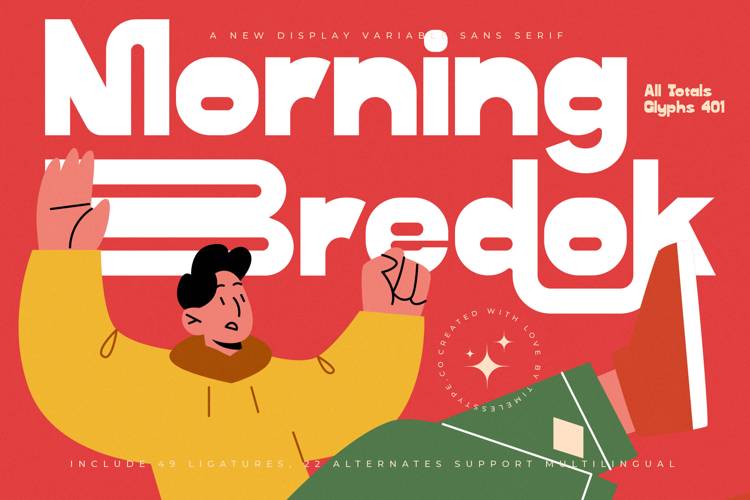
Morning Bredok - Display Variable Sans Serif
Morning Bredok is a variable sans serif display font that combines modern boldness with versatile functionality. Its clean lines, geometric balance, and contemporary proportions make it perfect for designs that require clarity, energy, and impact. With 401 glyphs, 49 ligatures, and 22 alternates, Morning Bredok offers designers the flexibility to create expressive typography across a variety of contexts, from editorial to branding.
This font shines in headline typography, where its strong and modern forms capture immediate attention on posters, banners, and editorial layouts. In branding and logo design, Morning Bredok communicates confidence and innovation, making it an excellent choice for startups, lifestyle brands, tech companies, and creative studios seeking a bold and adaptable identity. Its clean structure also makes it a natural fit for packaging design, particularly for products that require a sleek, modern aesthetic such as beverages, cosmetics, and everyday goods.
Morning Bredok thrives in advertising campaigns, event promotions, and social media graphics, where its ligatures and alternates provide variety and dynamic appeal. On digital platforms and websites, the font ensures readability while adding a stylish, modern edge that keeps brands fresh and engaging.
With multilingual support, Morning Bredok adapts easily to international projects, making it highly versatile for global design needs.
Ultimately, Morning Bredok is more than just a sans serif font—it is a modern design tool for clarity, boldness, and versatility. Whether used for editorials, branding, packaging, or digital media, it guarantees projects that are impactful, stylish, and unforgettable.